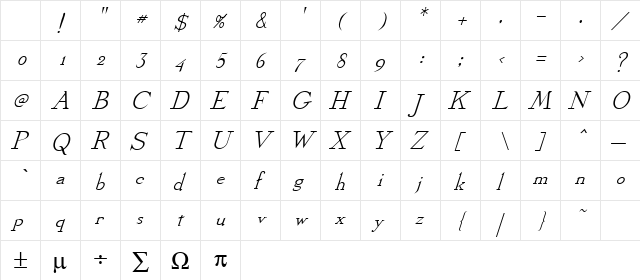
Complete Pandora's Box 4 Italic glyph index. Displaying only characters natively supported by Pandora's Box 4 Italic font.
Pandora's Box 4 is a composed and adaptable typeface that performs quietly and consistently across a wide range of design contexts. The slanted form adds forward momentum and visual energy.